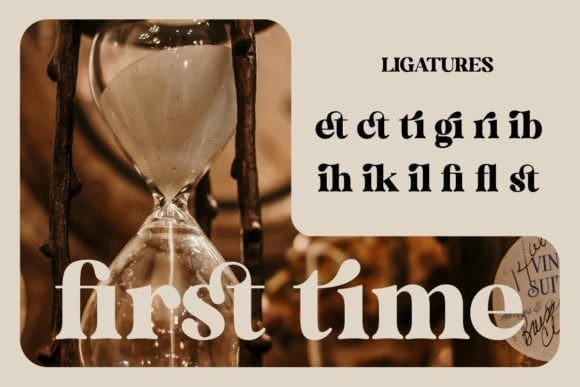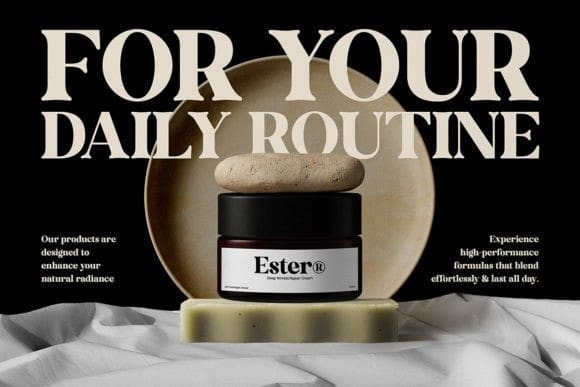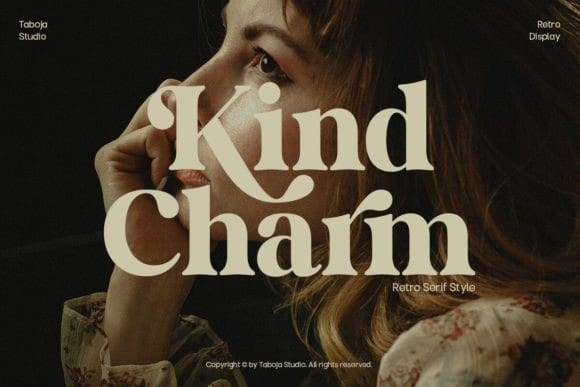
Kind Charm Font
Kind Charm Font, capture the nostalgic beauty of vintage typography with Kind Charm Retro Font. Perfect for creating eye-catching posters, logos, and social media graphics, this font combines smooth curves with sharp edges to deliver a unique and timeless look.
Whether you’re working on a 1920s-inspired design or a funky 1980s project, KindCharm is the ideal choice to bring your creative visions to life. Available now, this font will make your designs stand out with a touch of retro charm.